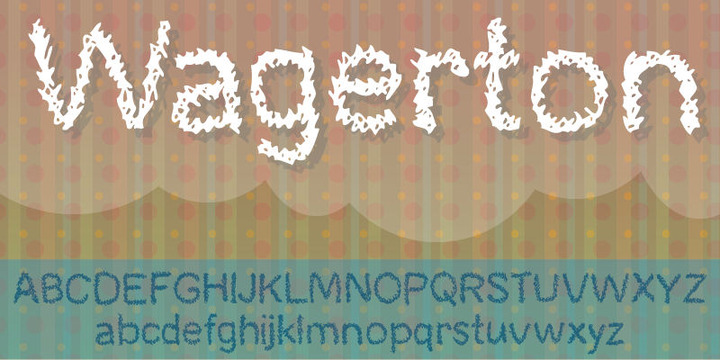
Wagerton is my very legible scribbled font!
The fine scribbled details are very visible at large sizes, but also leaves a good impression when used in small sizes as well.
Comes with ligatures for double letters and double numbers - along with alternative letters for both upper- and lowercase!